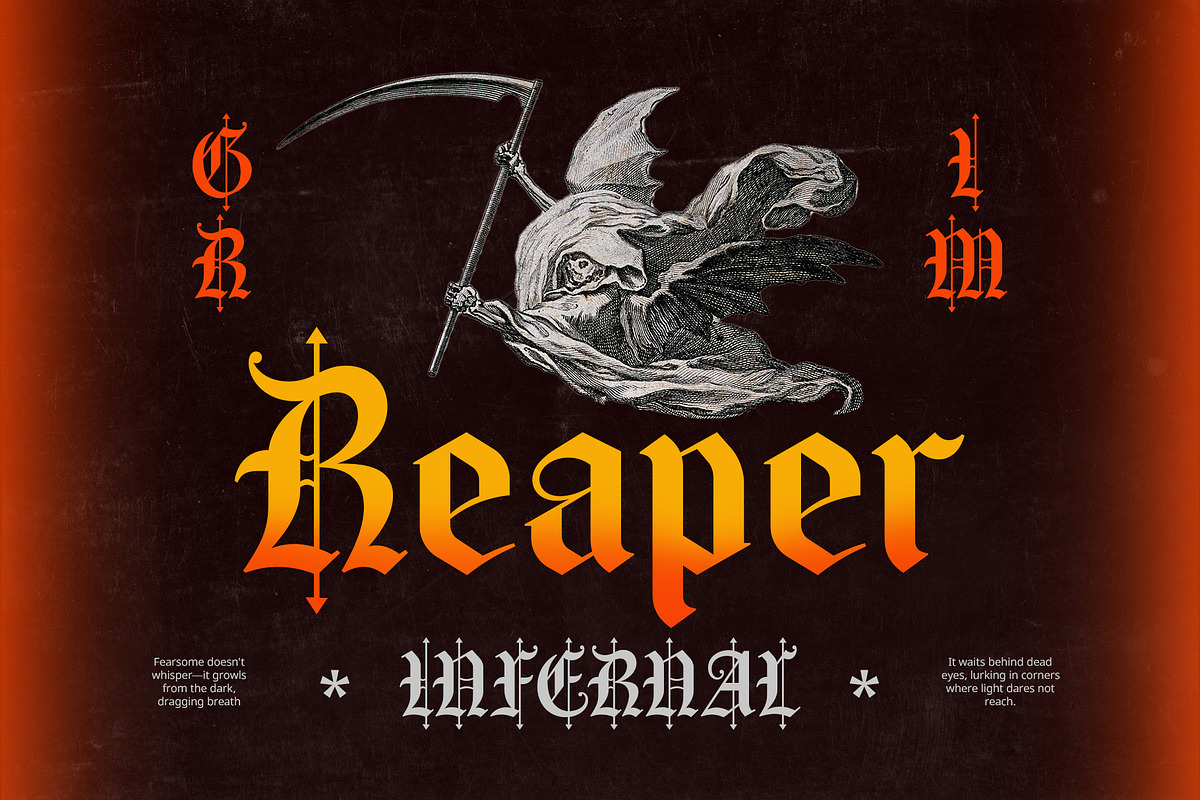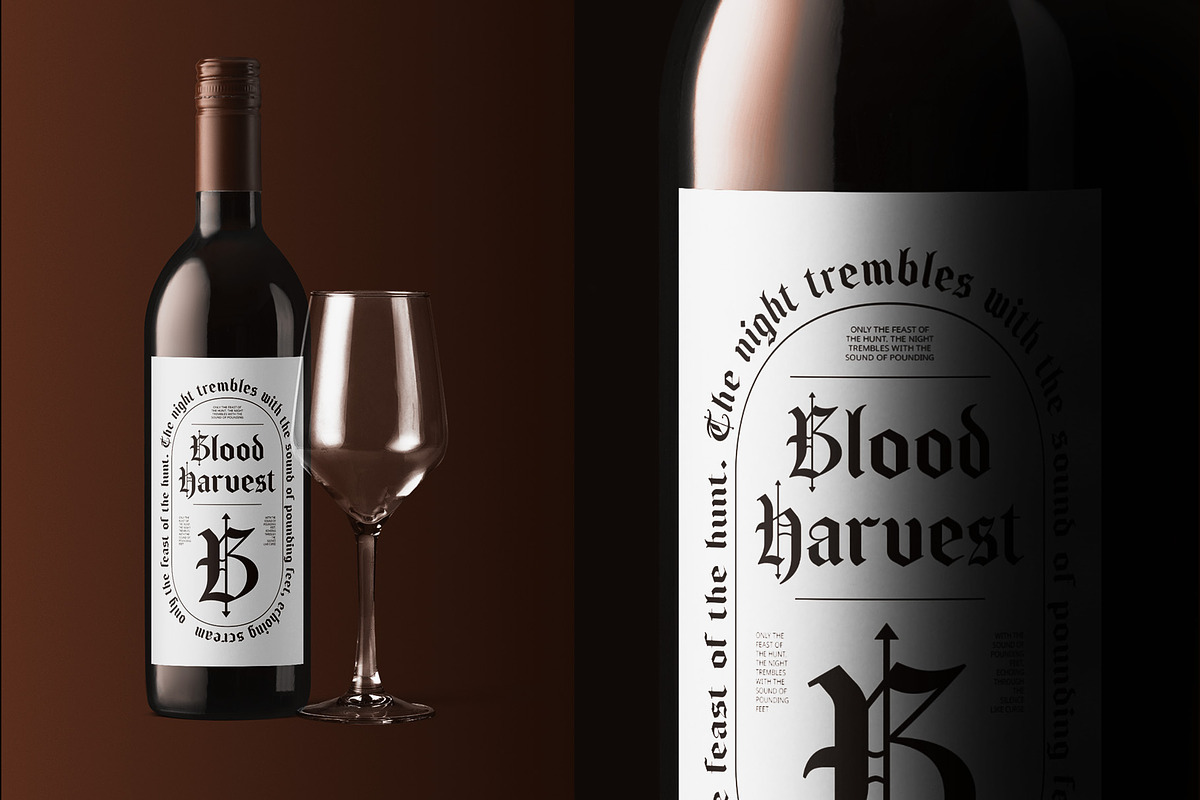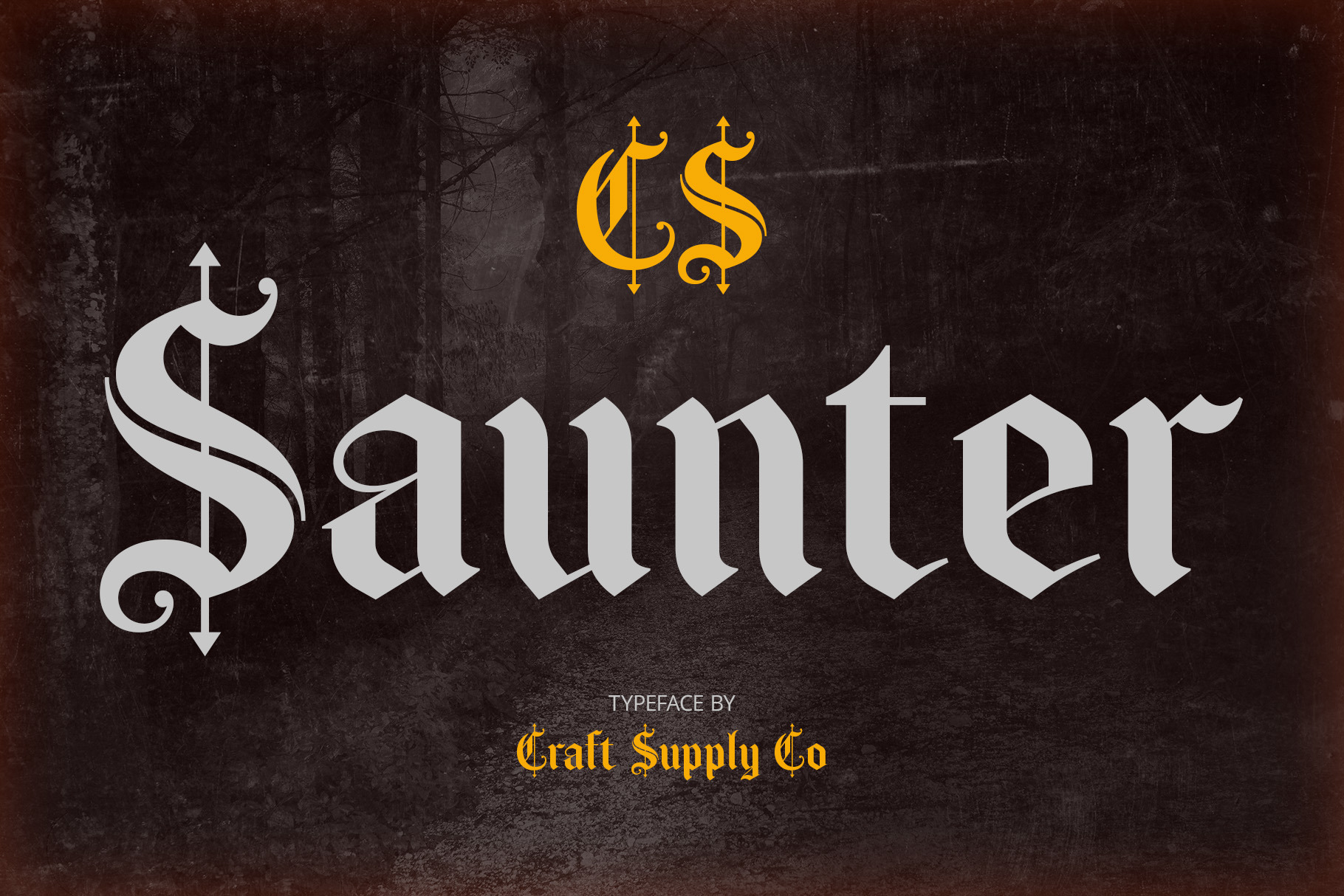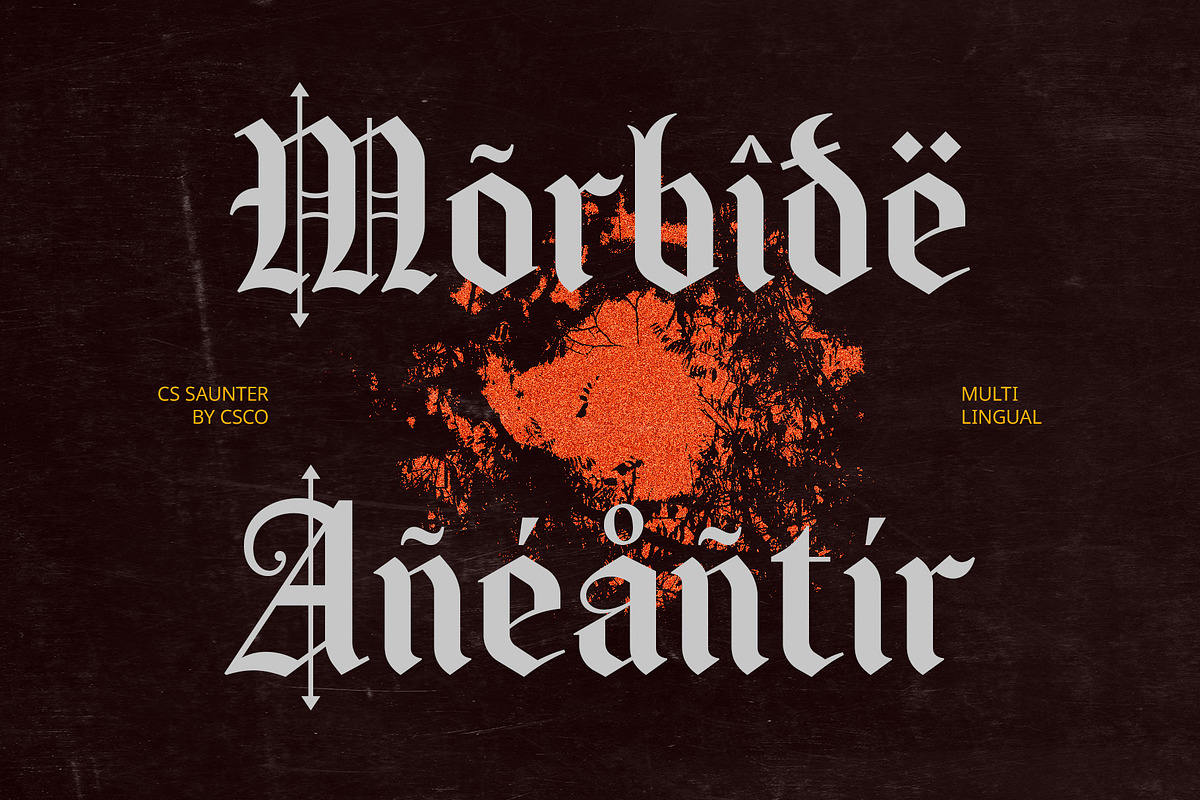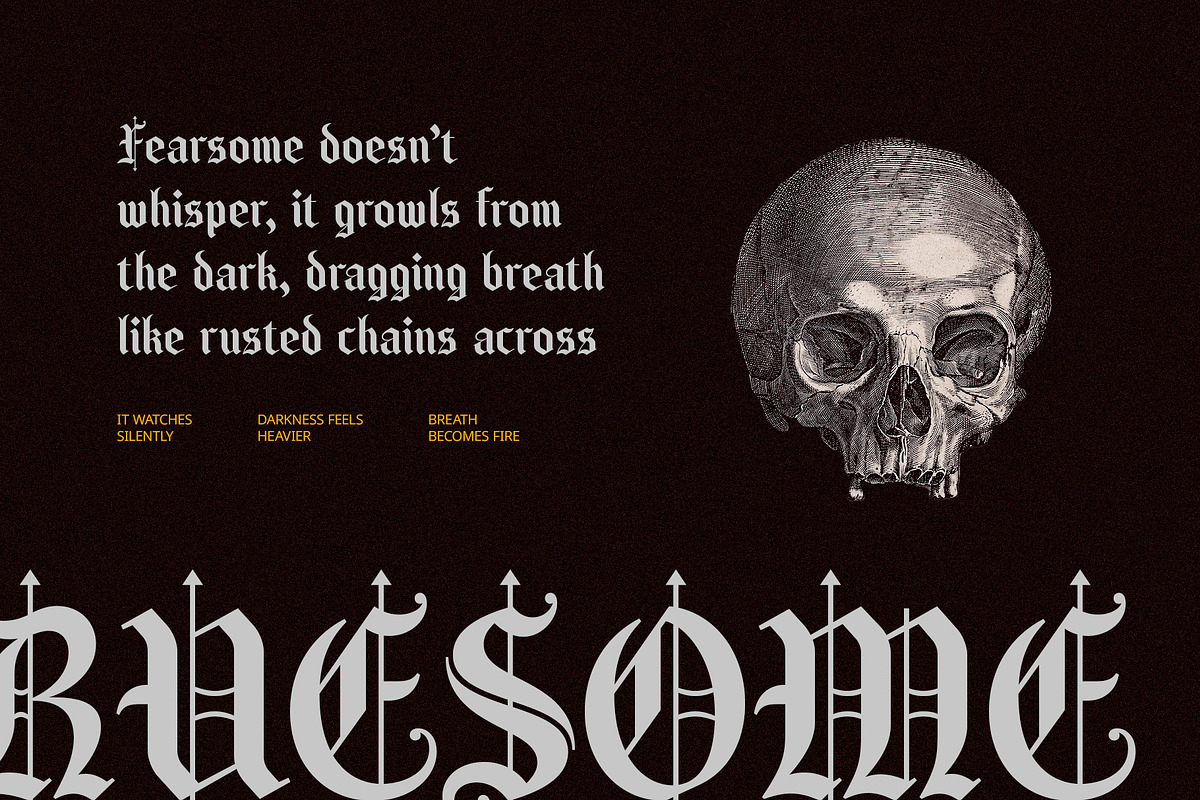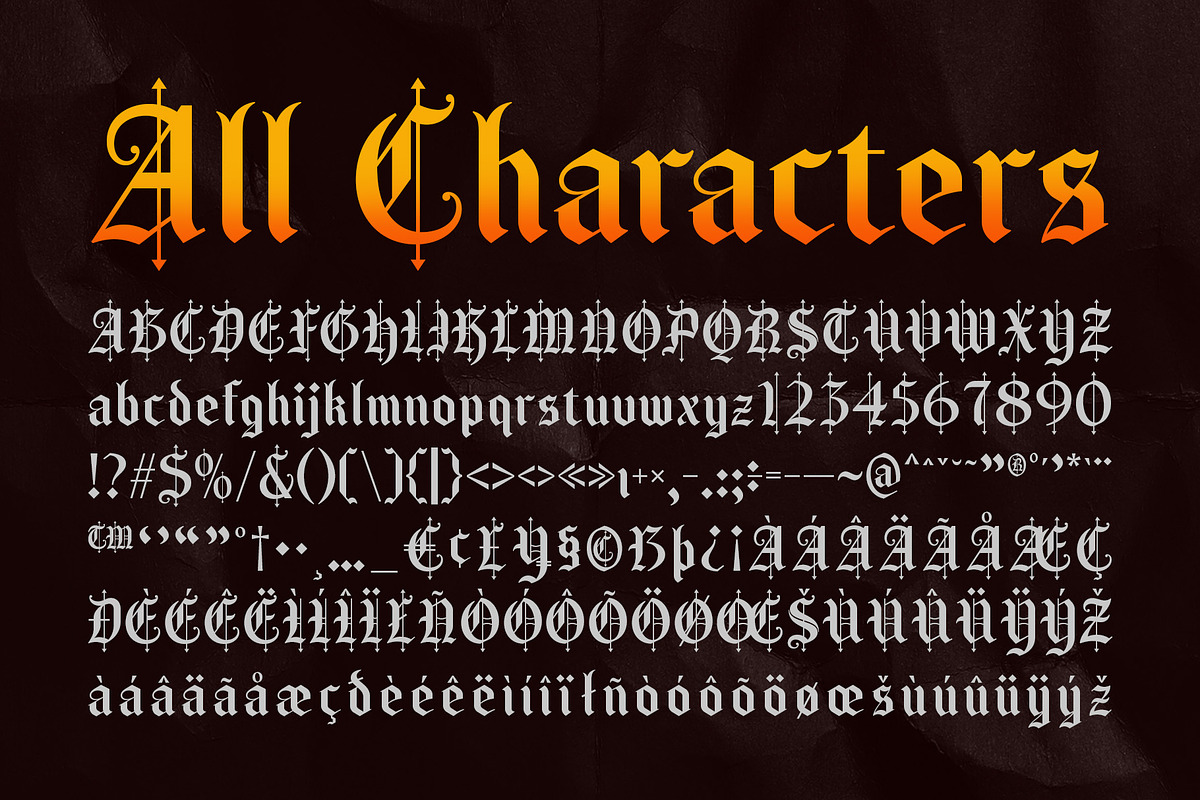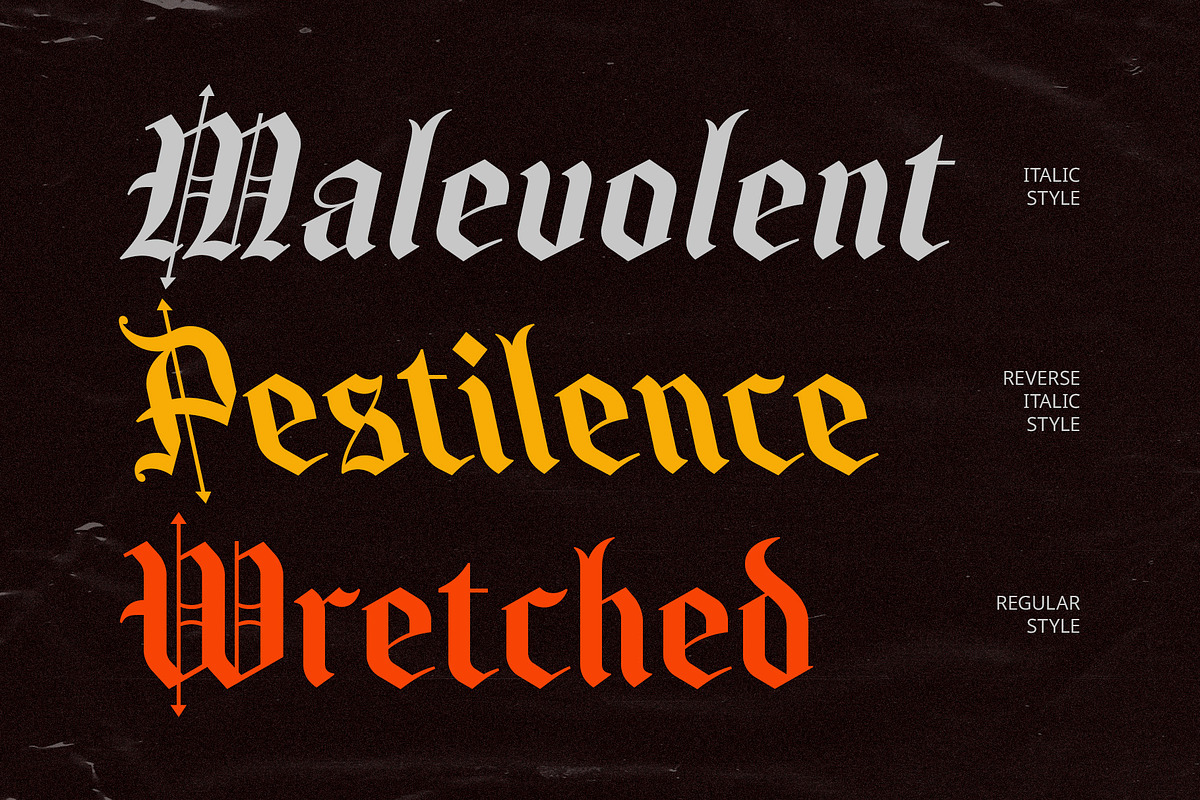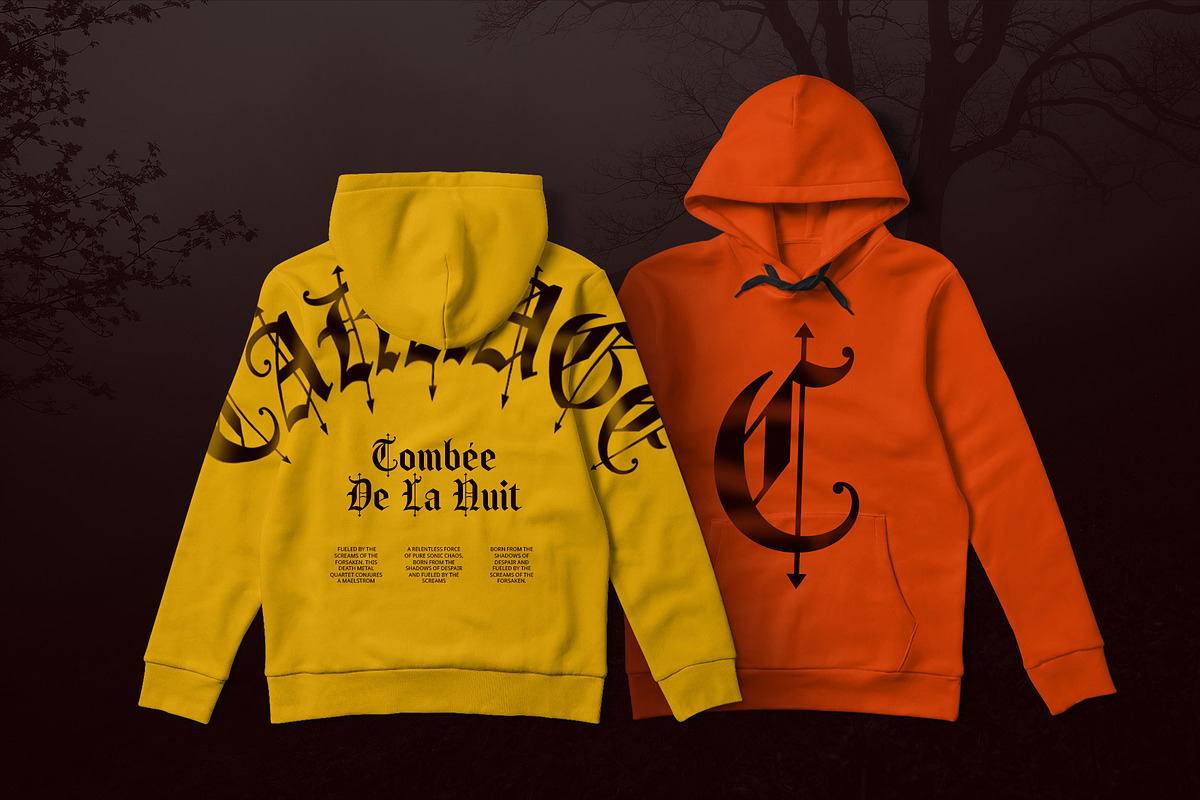
CS Saunter – Old English Font
CS Saunter – Old English Font: A Majestic Journey into History
Classic Old English Design with a Mystical Aura CS Saunter is an Old English display font that embodies the timeless elegance of medieval calligraphy, blending the grandeur of traditional Old English with intricate ornamentation. The bold, ornate letterforms create a classic and mysterious atmosphere, perfect for designs that evoke a sense of history and intrigue.
Rich in Detail for a Majestic Impression Each character in CS Saunter is meticulously crafted with rich details, offering a visual depth that enhances its mysterious aura. The font’s ornamented edges and traditional design elements make it ideal for projects aiming to create an air of elegance, sophistication, and mysticism.
Perfect for Gothic, Fantasy, and Historical Themes Whether you’re designing for a fantasy novel, gothic-themed event, or historical branding, CS Saunter offers the perfect typeface to convey a sense of grandeur. Its unique design is sure to elevate any project that seeks to highlight tradition, mystery, and a deep connection to the past.
Versatile for Timeless and Meaningful Designs CS Saunter shines in a variety of settings, from book covers to event invitations, offering a versatile tool for any designer looking to infuse a project with a sense of timelessness and significance. Ideal for conveying a grand, historical, or fantastical narrative.